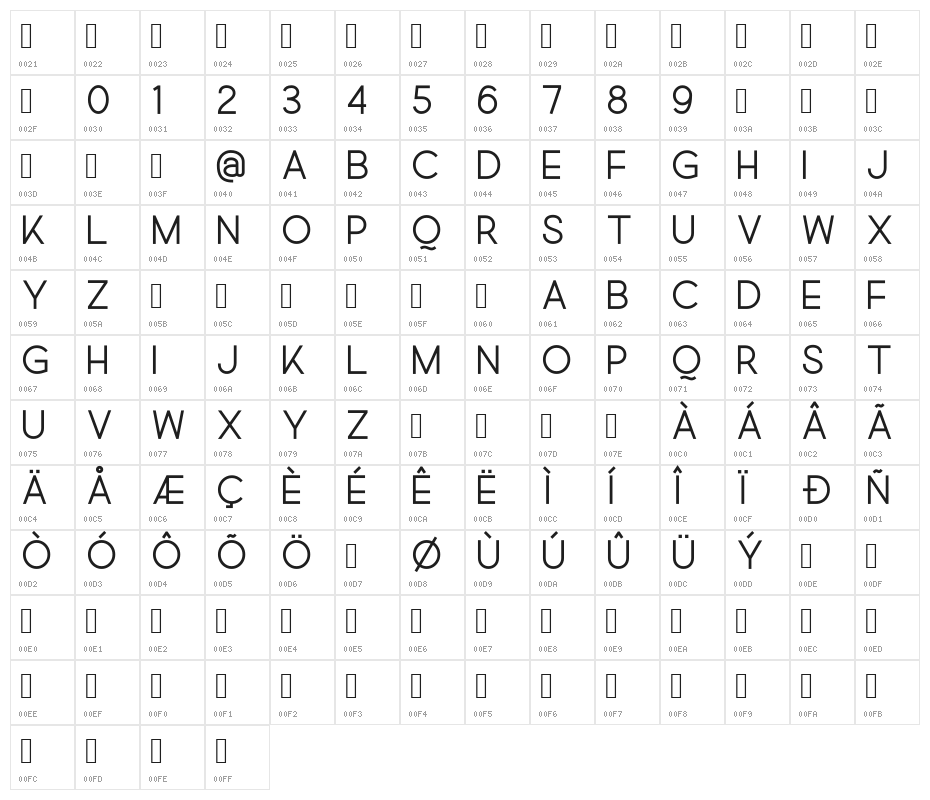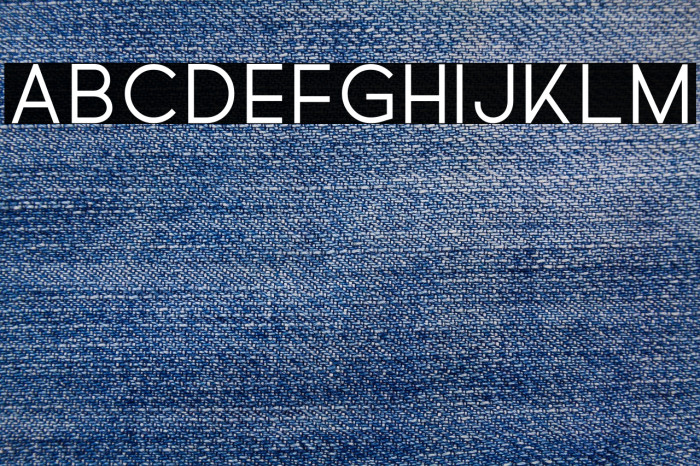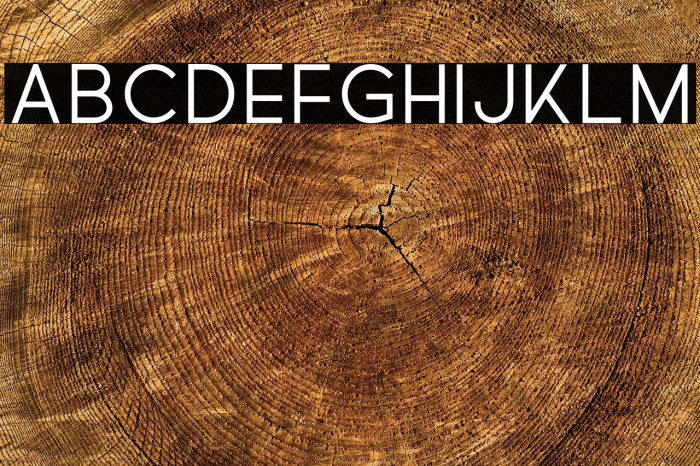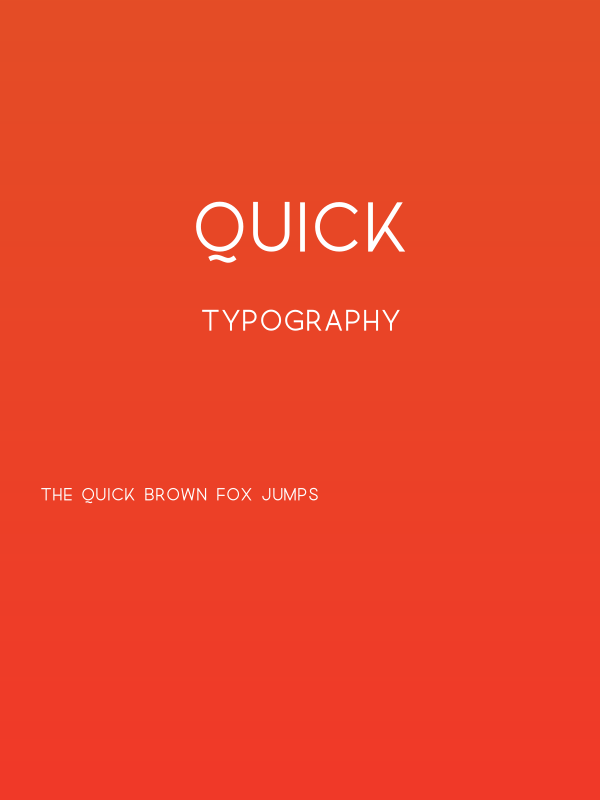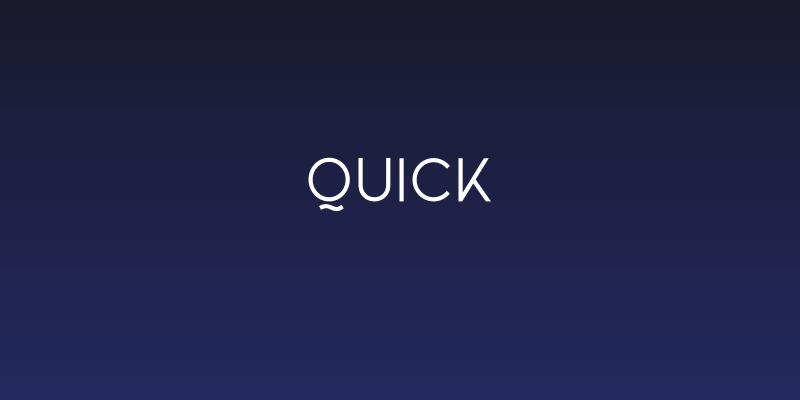
Quick Font
Quick Description
This font features a clean and modern sans-serif style with uniform stroke widths, giving it a sleek and contemporary appearance. The characters are well-proportioned, with a slightly geometric feel, making it highly legible and versatile for various design applications. The uppercase and lowercase letters maintain a consistent height, while the numerals are clear and distinct. The special characters are designed to blend seamlessly with the rest of the font, ensuring a cohesive look across different uses.
| Use Case | Headlines, Body text, Logos |
| Proposed Projects | Ideal for branding, web design, advertising, and editorial layouts where clarity and modernity are essential. |